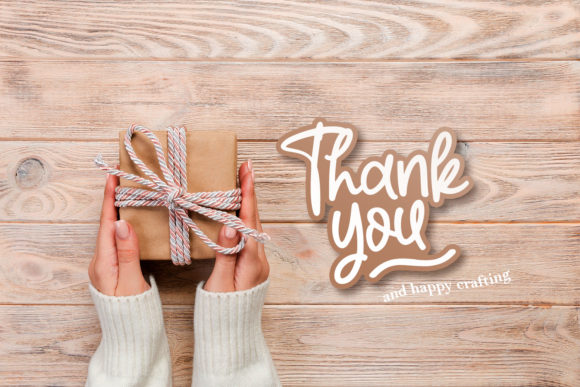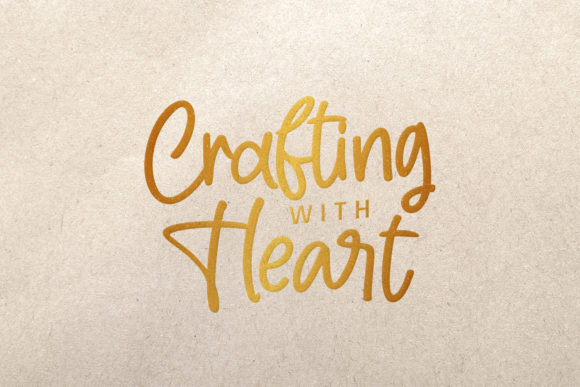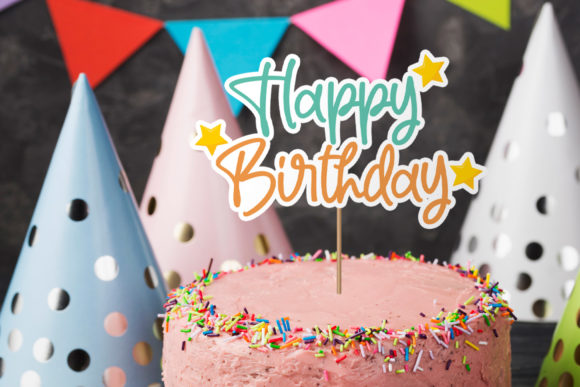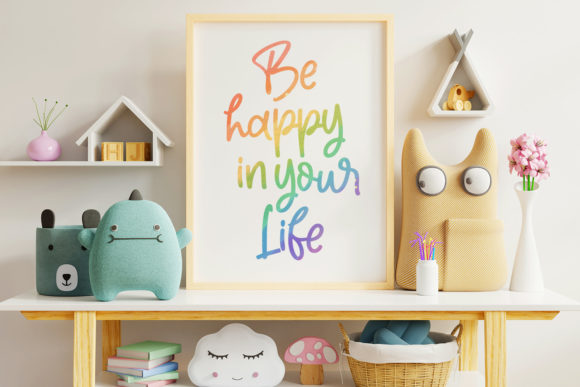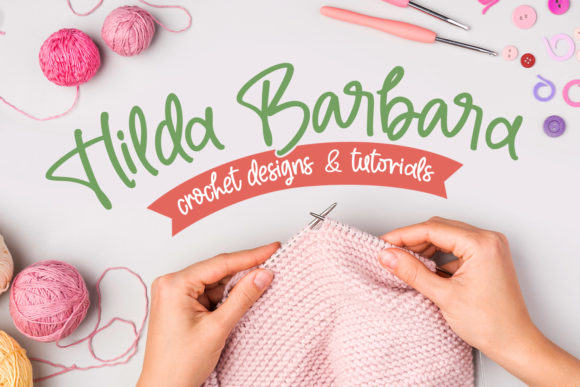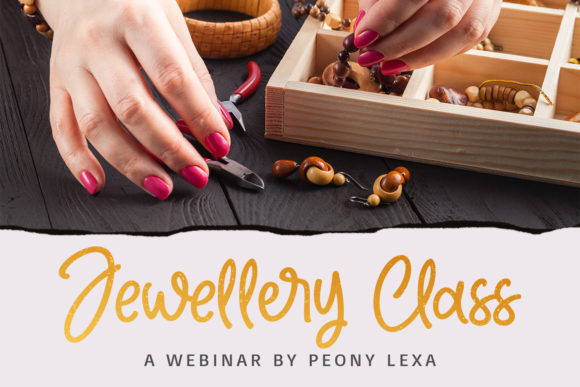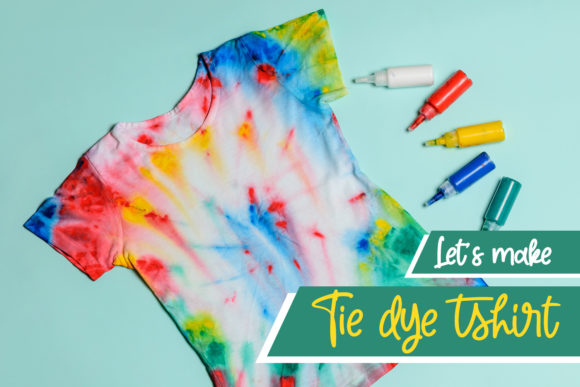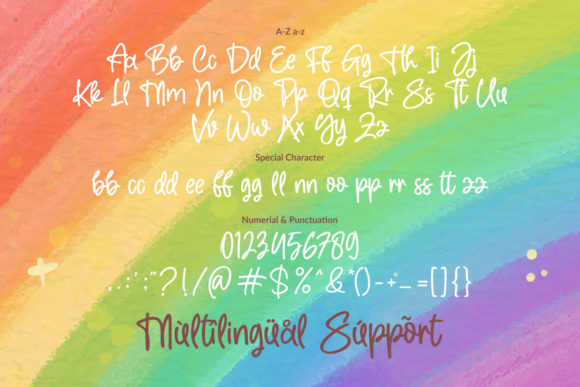
The Crafter Font
About The Crafter Font
“The Crafter” is a delightful and versatile handwritten font that adds a touch of creativity and charm to any design. Its sweet and friendly style makes it suitable for a wide range of creative projects. Here are some imaginative ideas on how to use “The Crafter” font to make your designs stand out:
1. DIY Craft Tutorials: Use “The Crafter” font in step-by-step DIY craft tutorials to add a personal and approachable touch to your instructions.
2. Handmade Product Labels: Apply “The Crafter” font to design product labels for handmade items such as candles, soaps, or jewelry, adding a unique and artisanal feel.
3. Crafty Social Media Graphics: Create eye-catching social media graphics with “The Crafter” font for craft-related content, tutorials, or craft inspiration posts.
4. Craft Fair Banners and Signage: Use “The Crafter” font for banners and signage at craft fairs or markets, drawing attention to your booth and handmade products.
5. Creative Blog Headers: Incorporate “The Crafter” font in blog headers and titles for craft blogs, showcasing your creative content with a touch of handmade charm.
6. Personalized Greeting Cards: Design custom greeting cards with “The Crafter” font, adding heartfelt messages and unique illustrations for special occasions.
7. Craft-Themed Party Invitations: Create invitations for craft-themed birthday parties or craft nights, using “The Crafter” font to set the tone for a fun and creative celebration.
8. Handmade Craft Workshops: Apply “The Crafter” font to promotional materials and posters for craft workshops or classes, inviting participants to join your creative sessions.
9. Crafty YouTube Channel Graphics: Design channel art and thumbnails for craft-related YouTube channels, using “The Crafter” font to establish a cohesive and inviting brand.
10. Craft Supply Packaging: Use “The Crafter” font for labels or packaging for craft supplies, giving them a personalized and handmade touch.
11. Craft Inspirational Quotes: Create beautiful quote graphics with “The Crafter” font, combining uplifting messages with artistic illustrations for a dose of crafty inspiration.
12. Handmade Recipe Cards: Design recipe cards with “The Crafter” font for homemade treats, sharing your favorite culinary creations with friends and family.
With “The Crafter” font’s friendly and artistic appeal, you can bring a sense of warmth and creativity to your designs. Embrace your imagination, and let this delightful font be the perfect companion for your crafty endeavors!